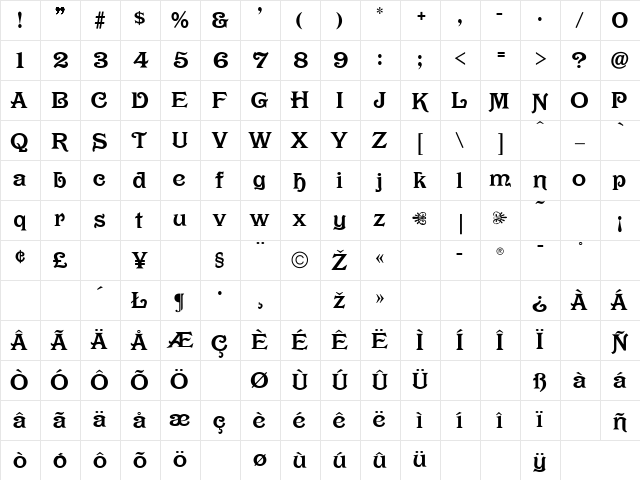
Olympian Regular
Olympian Family
Olympian Regular
Design Context for Olympian
Olympian is a composed and adaptable typeface that performs quietly and consistently across a wide range of design contexts.